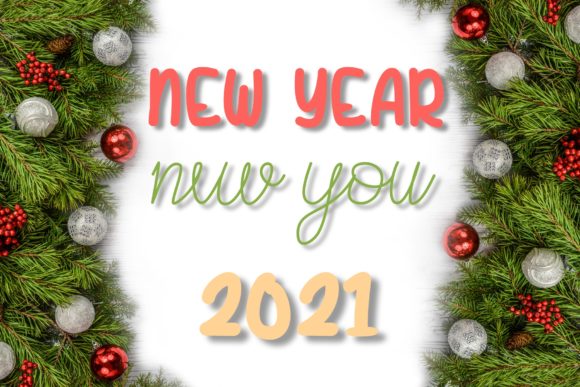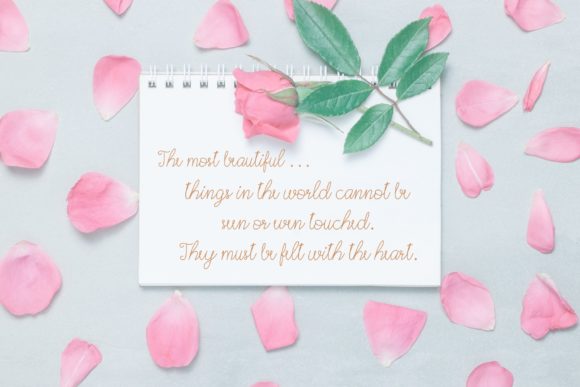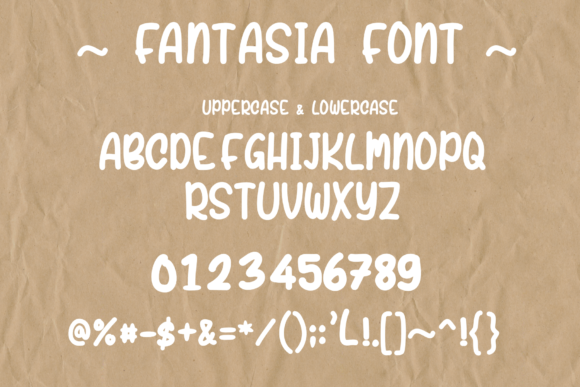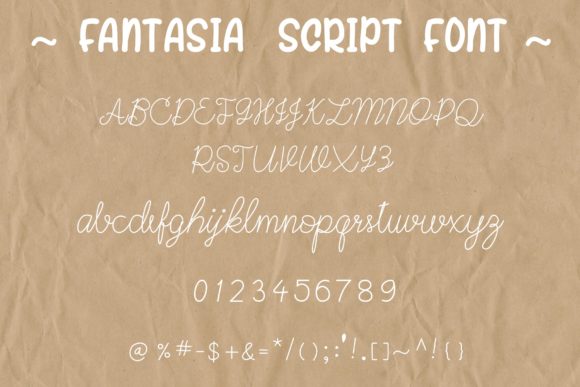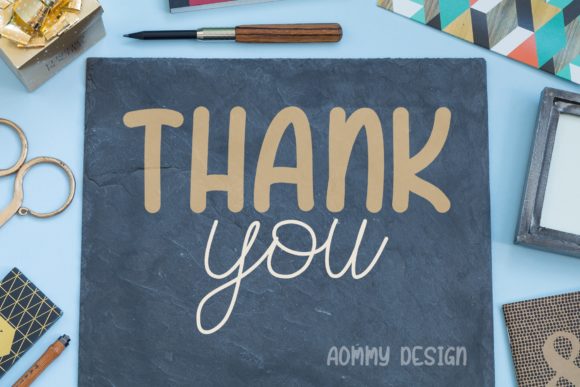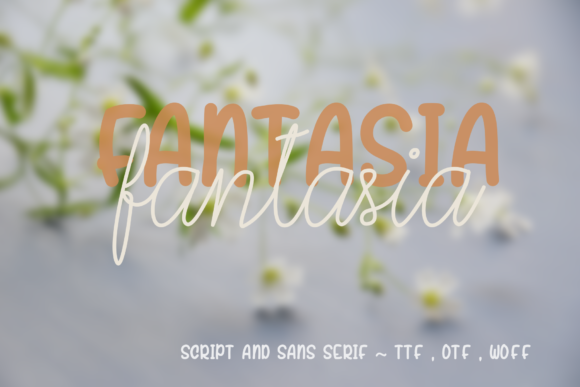
Fantasia Font: The Ultimate Duo for Creative Expression
Are you a designer, crafter, or simply someone who loves to express their creativity? Look no further than the Fantasia Font, a sweet and incredibly versatile duo font that’s perfect for a wide range of projects. From branding and product packaging to invitations, quotes, t-shirts, labels, posters, and logos, Fantasia Font is the ultimate tool to help you bring your ideas to life.
What Makes Fantasia Font So Special?
Fantasia Font is a duo font, meaning it comes with two complementary fonts that can be used together to create stunning visual effects. The font is designed to be highly versatile, making it suitable for a variety of applications, from elegant and sophisticated to playful and whimsical. Whether you’re working on a professional project or a personal passion project, Fantasia Font is the perfect choice.
Key Features of Fantasia Font
- Highly Versatile: Fantasia Font can be used for a wide range of projects, from branding and packaging to invitations and posters.
- Duo Font: The font comes with two complementary fonts that can be used together to create stunning visual effects.
- Elegant and Playful: Fantasia Font is perfect for creating elegant and sophisticated designs, as well as playful and whimsical ones.
Inspiration for Using Fantasia Font
Here are a few ideas to get you started with Fantasia Font:
- Branding: Use Fantasia Font to create a unique and memorable brand identity for your business or product.
- Product Packaging: Add a touch of elegance and sophistication to your product packaging with Fantasia Font.
- Invitations: Create beautiful and eye-catching invitations for weddings, parties, and other special events.
- Quotes: Use Fantasia Font to create inspiring and motivational quotes for social media or print.
- T-Shirts: Design custom t-shirts with Fantasia Font for a unique and stylish look.
Tips and Tricks for Getting the Most Out of Fantasia Font
Here are a few tips and tricks to help you get the most out of Fantasia Font:
- Experiment with Different Colors: Fantasia Font looks great in a range of colors, so don’t be afraid to experiment and find the perfect hue for your design.
- Mix and Match: Try mixing and matching the two fonts that come with Fantasia Font to create unique and interesting visual effects.
- Add Texture and Patterns: Add texture and patterns to your design to give it an extra layer of depth and interest.